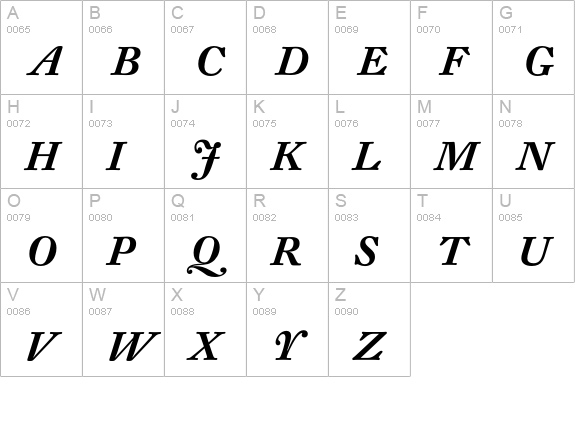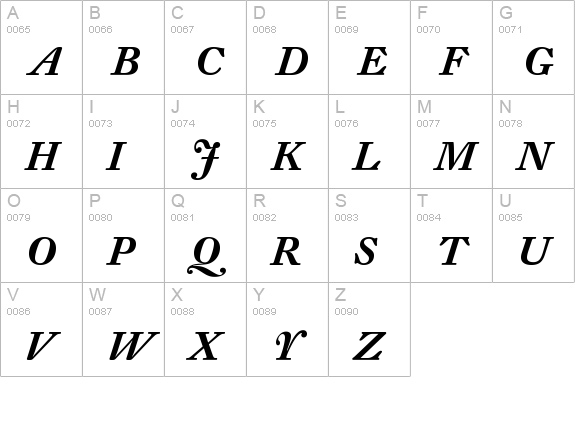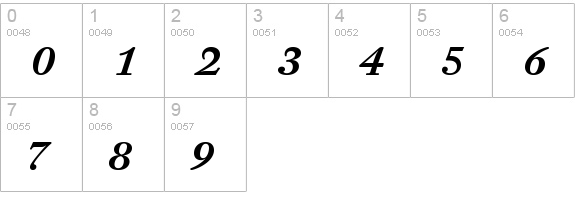
DTLFleischmannT-MediumItalic font is a stylish and elegant typeface that exudes sophistication and charm. With its distinctive italicized design, this font adds a touch of flair to any project or design. The graceful curves and slanted angles of the letters create a sense of movement and dynamism, making it perfect for conveying a sense of energy and creativity. This font is not only visually appealing but also highly versatile, making it suitable for a wide range of design applications, from branding and advertising to editorial and web design. Whether you're looking to create a sleek and modern look or add a touch of elegance to your project, DTLFleischmannT-MediumItalic font is sure to impress. And the best part? This font is available for free download at FontsMarket.com, so you can easily add it to your font collection without breaking the bank. Don't miss out on the opportunity to elevate your designs with this beautiful and versatile typeface.